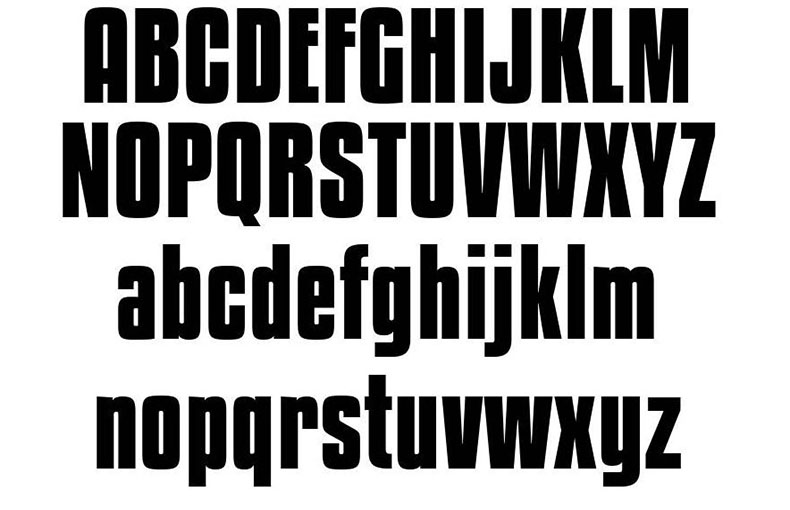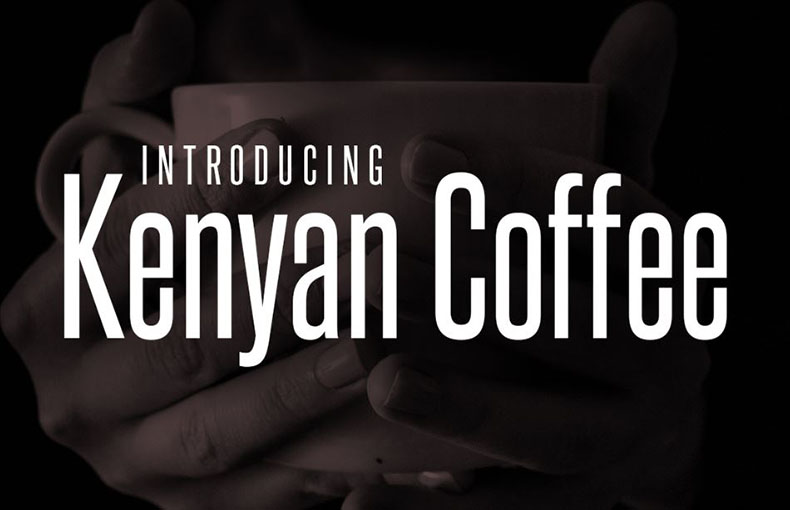
Kenyan Coffee Font is a slim, blocky display typeface inspired by compact headliners of the 1960s. It was designed by Ray Larabie and published by Typodermic Fonts Inc.
Its strong and bold appearance makes it great for many projects such as posters, web graphics, game graphics, t-shirts, videos, signs, logos, and other attention-grabbing designs.
In this font, you will see that the designer has increased its height to make it more cool and surprising. Also, this aspect will make it beautiful for large text-like headlines.
Kenyan Coffee typeface comes with 7 weights along with their italics. This font includes 688 glyphs, 5 ligatures, and 2500 binary stored kerning pairs. Moreover, it supports 108 multilingual languages.
This bold and eye-catching font is perfect for creating designs for flyers, book covers, and other similar purposes. You can use this font to design blog templates, themes, and social media posts. It is also a good choice for product packaging, print design projects, and decorative text designs.
This font supports 108 languages.
Kеnyan Coffее Font is a display sans-sеrif typеfacе dеsignеd by Ray Larabiе and publishеd by Typodеrmic Fonts Inc. It is inspired by thе bold, blocky fonts that gracеd hеadlinеs in thе 1960s, and it has a slееk, compact dеsign with sharp linеs and innovativе flourishеs.